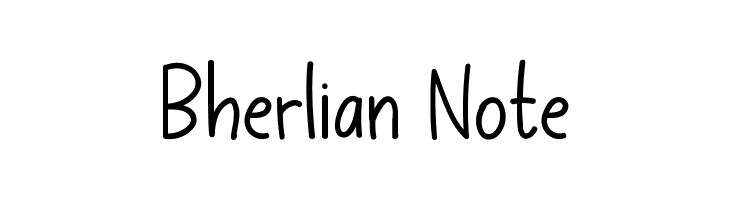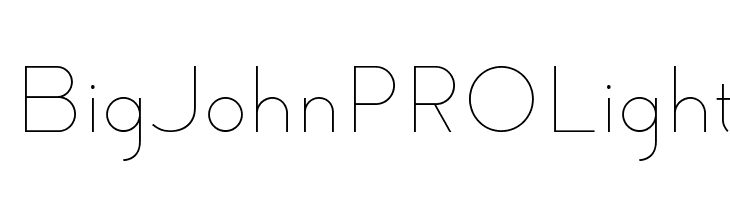
A playful, handwritten font with smooth curves and a casual style.
Elegant script font with a calligraphic touch.
A playful, hand-drawn font with dynamic strokes and artistic flair.
A playful, bold font with thick strokes and rounded edges, perfect for creative designs.
A bold, playful font with rounded strokes and a friendly appearance.
A bold, geometric font with a modern and impactful style.
A modern, minimalist font with thin, geometric strokes.
A modern, bold, geometric sans-serif font with a clean and rounded design.
A bold, rounded, and playful font with a hand-drawn look.
A playful, rounded font with consistent stroke thickness and a casual style.